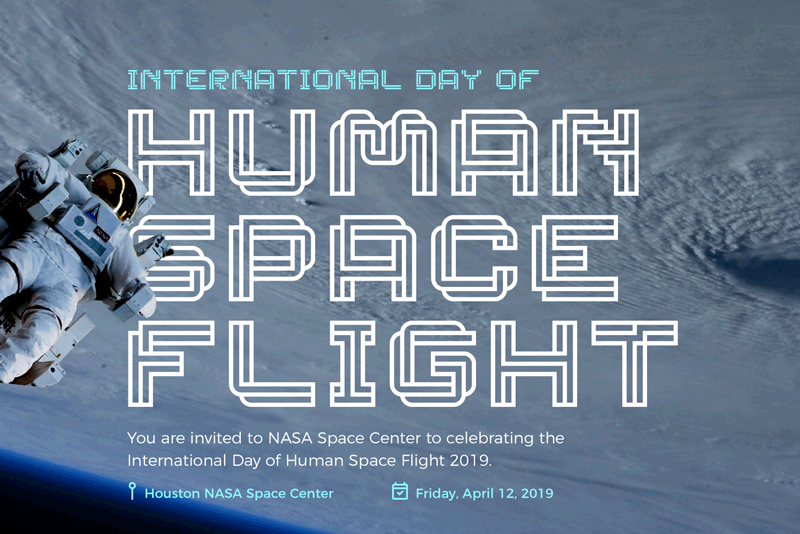
Preview and download Linee Font. Created by Rio Purba in Techno Sci-fi styles with Demo license.
Hello folks! Thanks for taking a look at my font. My name is Riopurba. This is the LINEE Display Font, a Scifi & Modern Look font. This font comes in two styles : Linee Regular, and Linee Solid. But you only have 1 style (Regular) in this Demo version. Please NOTE : this demo font is for PERSONAL USE ONLY. If you make money with this font, please purchase the complet version and commercial license here : https://crmrkt.com/rB7MmP?u=riopurba You may buy me a cup of coffee : https://www.paypal.me/riopurba Please visit my official store for other fonts and templates : https://creativemarket.com/riopurba?u=riopurba https://creativemarket.com/Typoerba?u=riopurba Need a specific license or want to collaborate with me? Keep in touch to rio.andrew77@gmail.com Follow my works : Behance : behance.net/riopurba Instagram : instagram.com/riopurbaID |